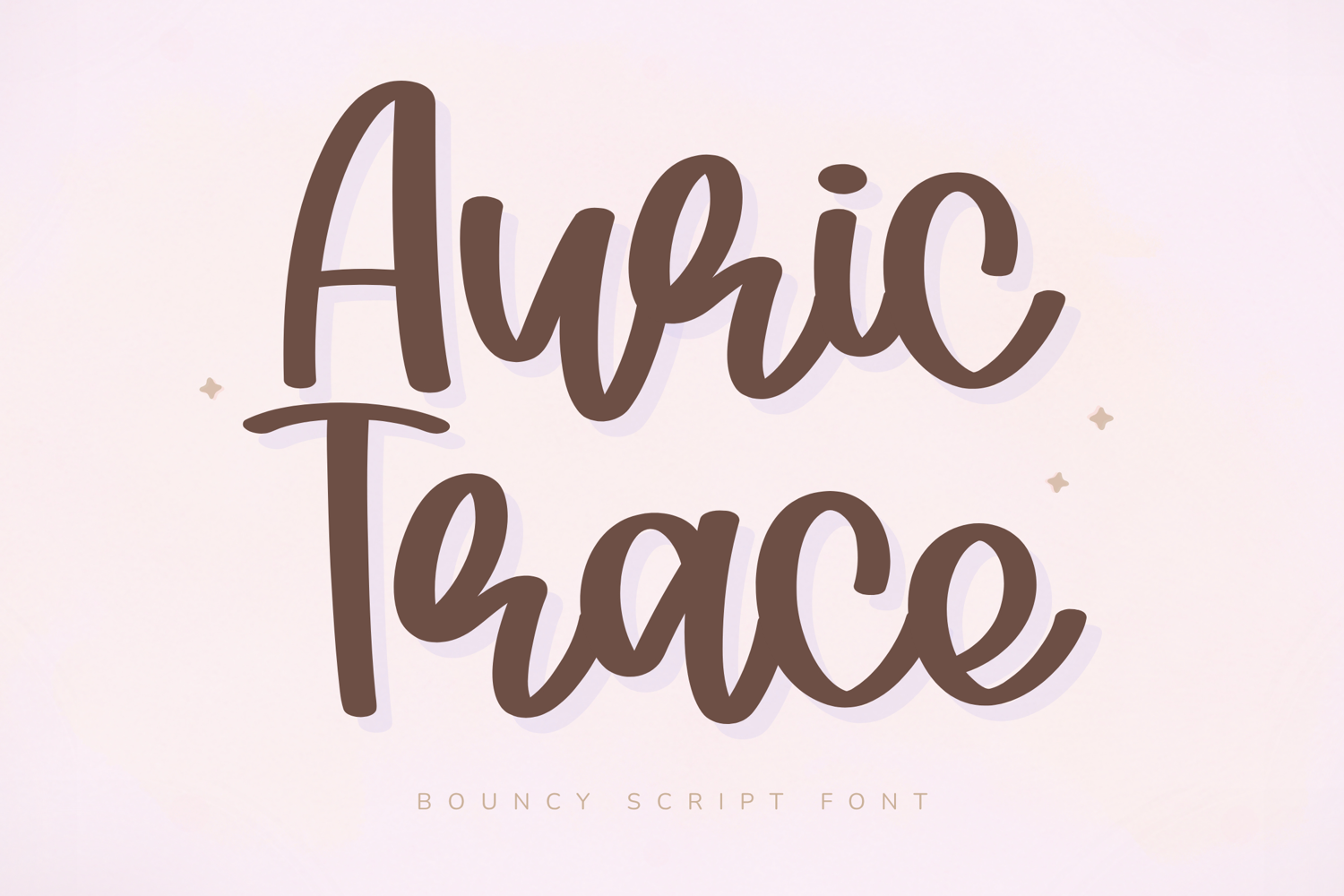
Auric Trace - Bouncy Script Font
Auric Trace is a playful and modern bouncy script font designed to bring energy, personality, and charm to your designs. With its smooth curves and lively letterforms, this font creates a fun and eye-catching look while still remaining clean and easy to read.
Perfect for creative branding, social media content, and craft projects, Auric Trace adds a friendly and stylish touch that stands out beautifully in any design.
Key Features:
Uppercase & lowercase letters
Playful bouncy script style
Smooth and clean strokes
Numbers, punctuation & symbols
Perfect For:
Branding & logos
Social media & Instagram posts
Cricut & craft projects
Stickers & merchandise
T-shirt designs
Invitations & greeting cards
Auric Trace is designed to create a fun, lively, and modern handwritten look, making it perfect for designs that need personality and movement.